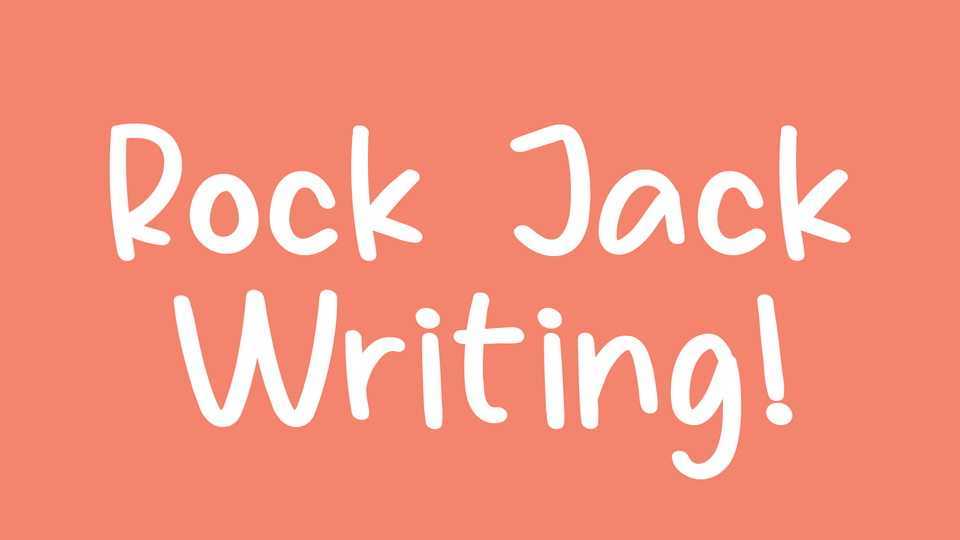
Download Rock Jack Writing font, a type of digital typeface that simulates the look and feel of actual handwriting. Rock Jack Writing is designed to mimic the unique characteristics of handwriting.
Designer: Stefie Justprince